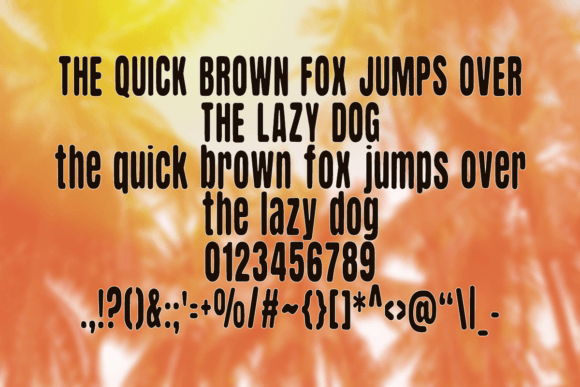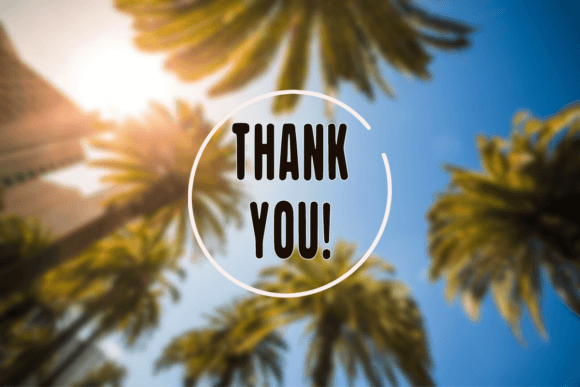
Introduction to Longito Font
Have you ever found yourself staring at a blank canvas, eager to bring your creative vision to life, but struggling to find the perfect font to tie everything together? This is where the Longito Font comes in – a game-changing addition to any design project. With its sleek, modern aesthetic and perfectly rounded corners, this sans-serif font is sure to elevate your creative ideas and make them stand out in a crowded space.
As a designer, you know the importance of having access to high-quality fonts that can help bring your vision to life. The Longito Font is a valuable resource for any creative project, offering a free download option that’s perfect for designers of all levels. Whether you’re working on a social media campaign, designing an invitation, or creating a logo, this font is sure to deliver.
Key Features of Longito Font
- High-quality font suitable for creative projects, including graphic design, digital art, and web development.
- Unique, modern design with a transparent background, allowing for seamless integration into any design project.
- Perfect for designers, artists, and writers looking for a high-quality, free font to enhance their creative projects.
Honest Review: Longito Font
As a designer, I’m always on the lookout for high-quality fonts that can elevate my creative projects. The Longito Font is a great addition to any design resource library. I recently downloaded it for free and was impressed with its clean and modern aesthetic.
- ✨ High-quality design: The Longito Font has a professional look and feel that’s perfect for a variety of creative projects.
- ✨ Transparent background: This font features a transparent background, making it easy to use in a variety of design scenarios.
One thing to note is that the Longito Font may not be suitable for projects that require a lot of bold or dramatic typography. The font’s design is more suited to clean and simple text arrangements.
Overall, I’m very impressed with the Longito Font and would highly recommend it to designers looking for a high-quality, free download to add to their design resource library.
The Longito Font is a versatile design resource that can be used in a variety of creative projects, including logos, business cards, brochures, and presentations. Its high-quality design and transparent background make it a great choice for designers and non-designers alike.